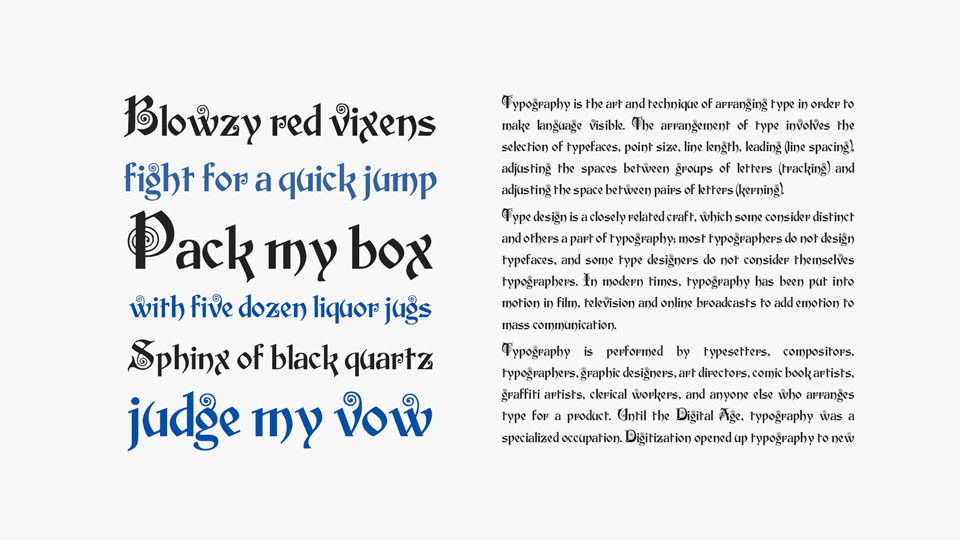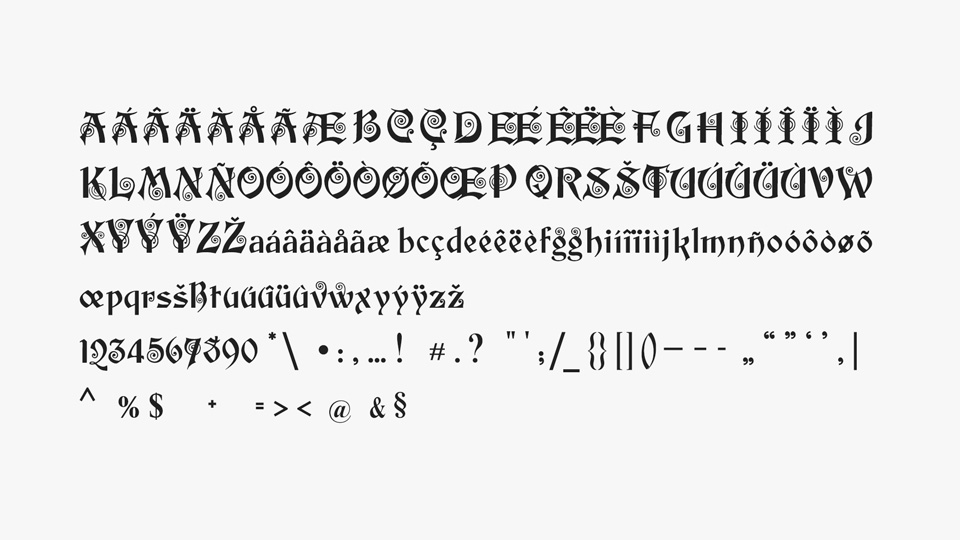
Edison is a fancy typeface with its terminals majestically looping and twirling in a circular fashion, quickly takes us back to the Victorian era of type. It based on the typeface released in 1896 by Bauer and Berthold in Germany.
Edison is full of ornament and detail which creates a truly striking pattern of intrigue and delight.